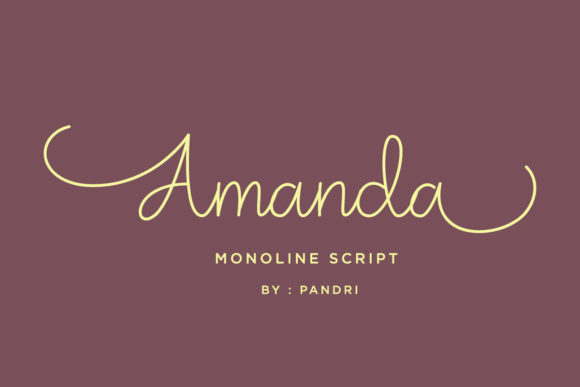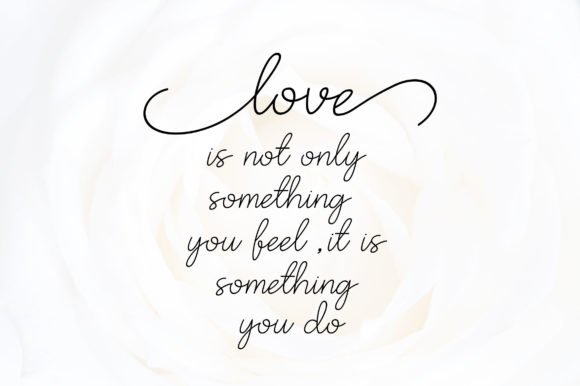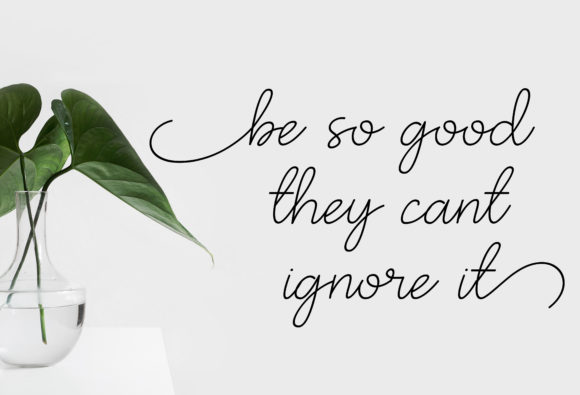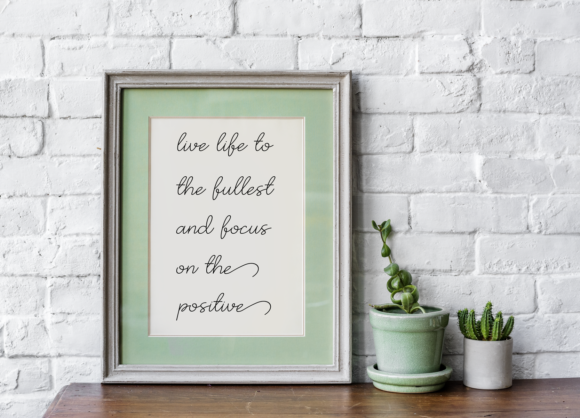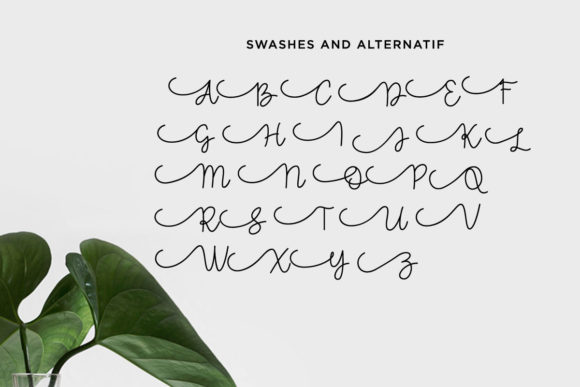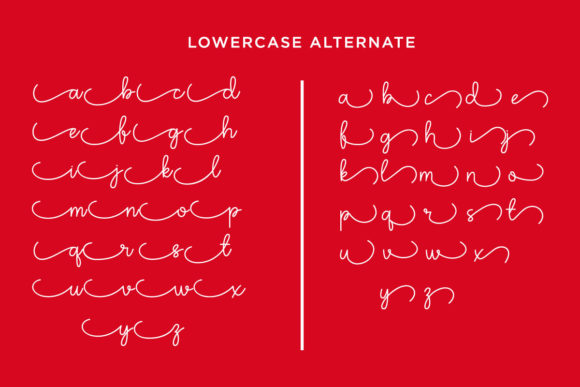
Amanda Font
About Amanda Font
Amanda is a lovely and adorable handwritten font with amazing swashes. It will turn any design idea into a true stand out!